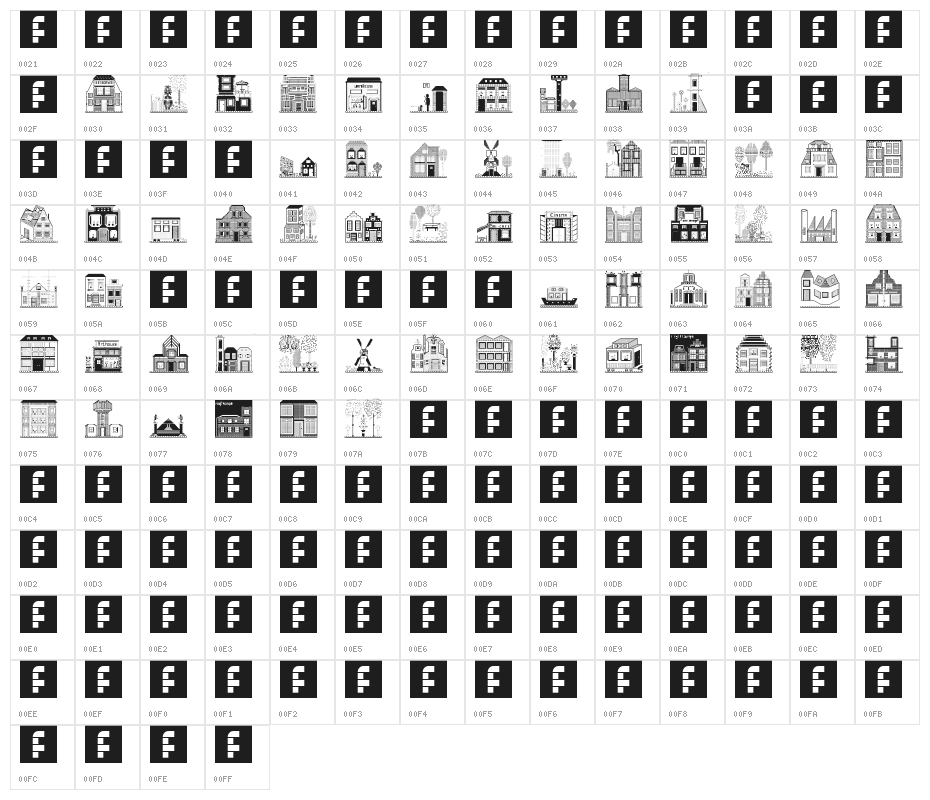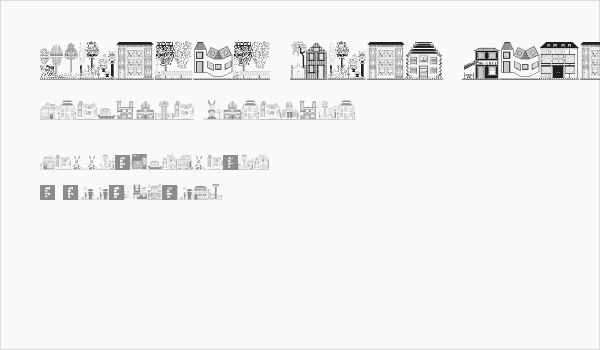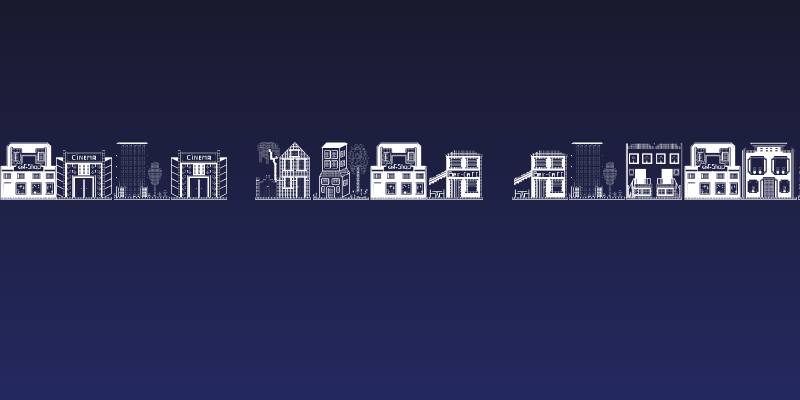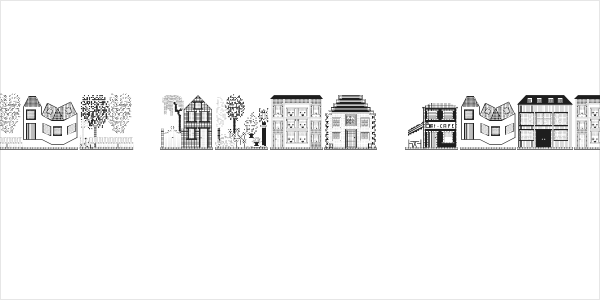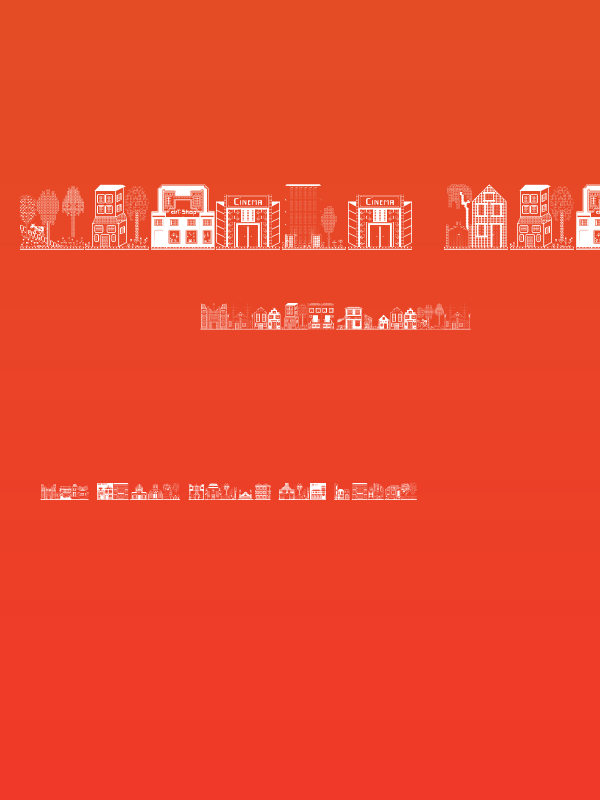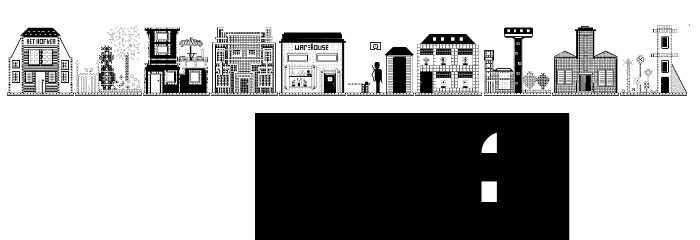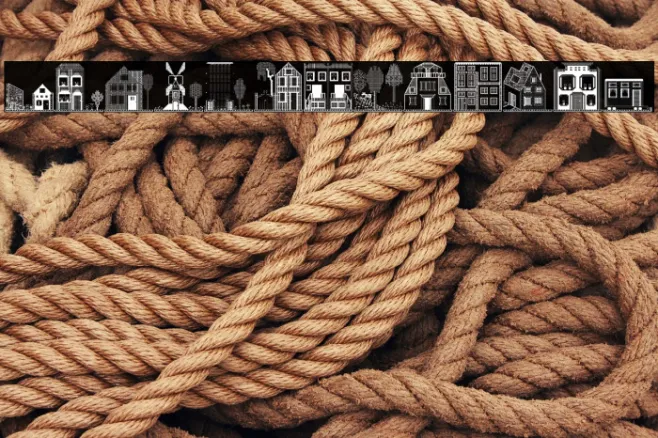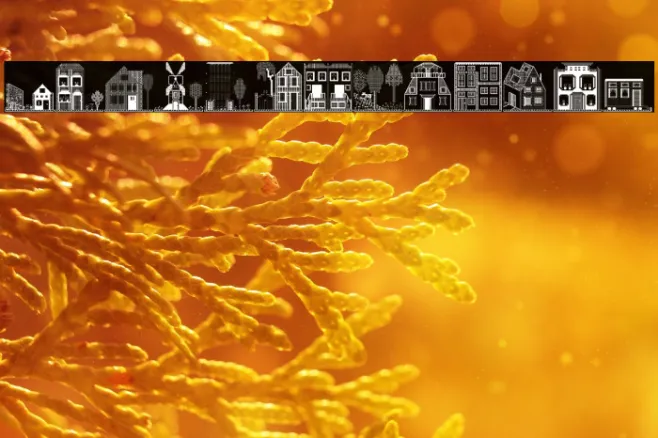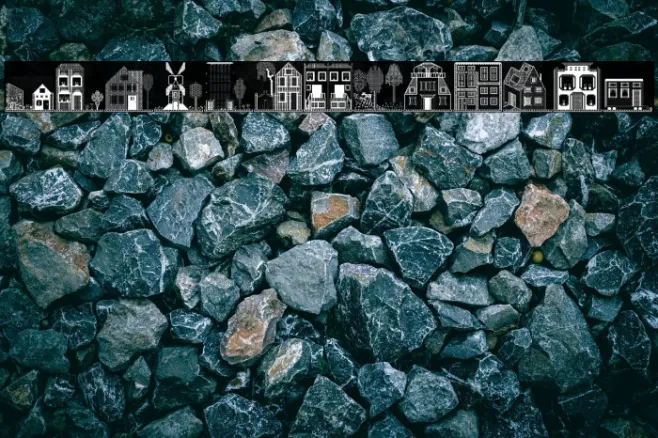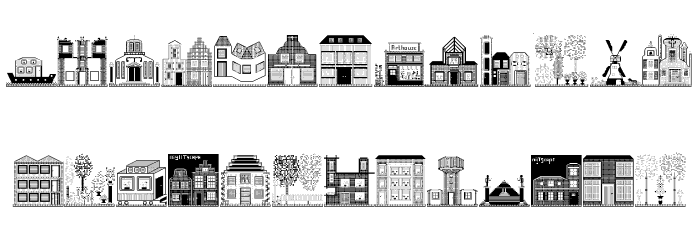
Houses Four Regular Font
Houses Four Regular Description
A highly decorative and illustrative font where each character is represented by a detailed, pixel-art style building or house, complete with architectural features and surrounding elements like trees and signs. The glyphs are unique and complex, making each letter or number a miniature scene.
| Overall Style | Decorative, Whimsical, Playful |
| Use Case | Headlines, Posters, Logos, Themed Graphics |
| Proposed Projects | Posters, children’s books, creative branding, event invitations, themed signage, educational materials. |